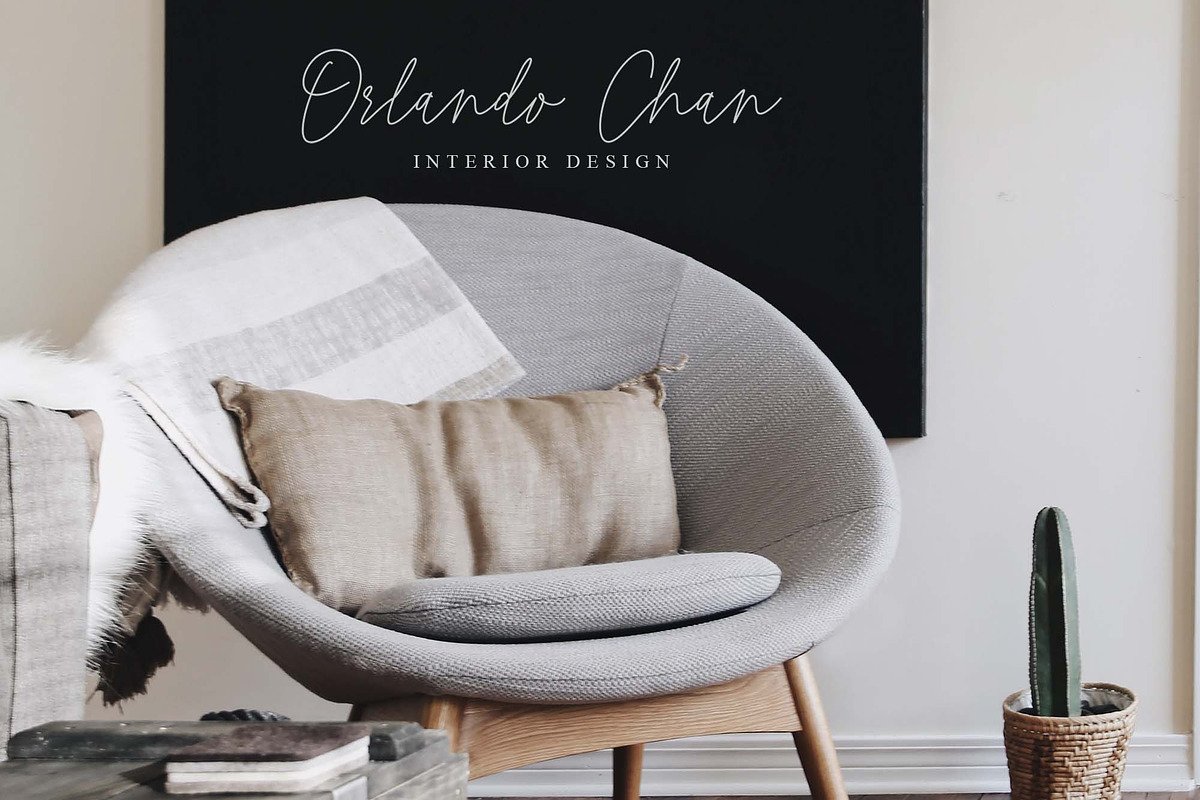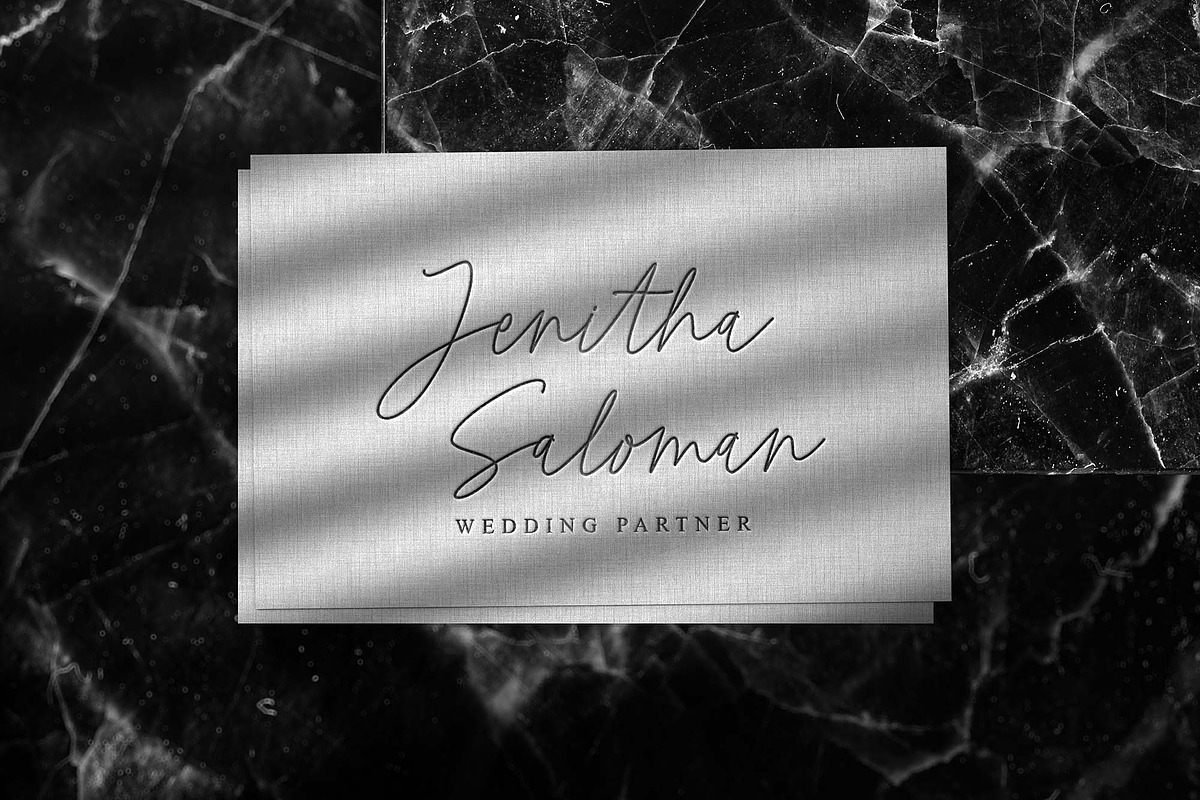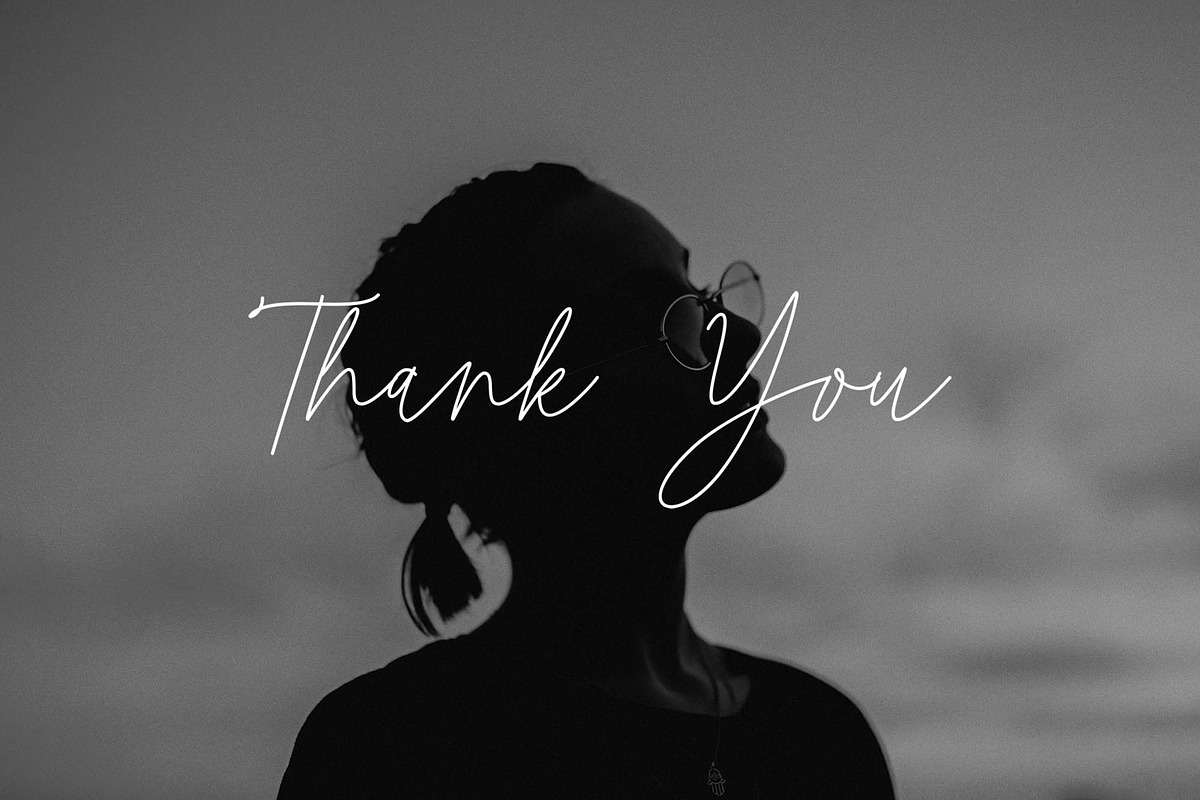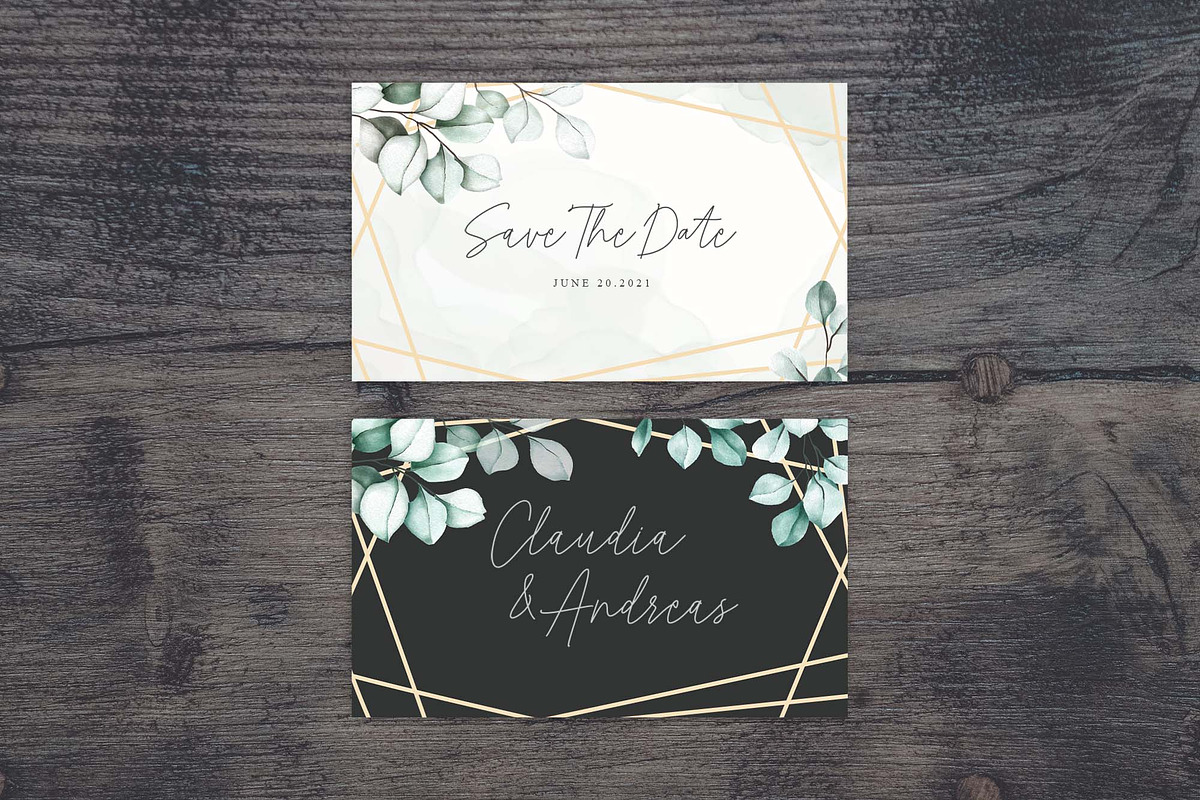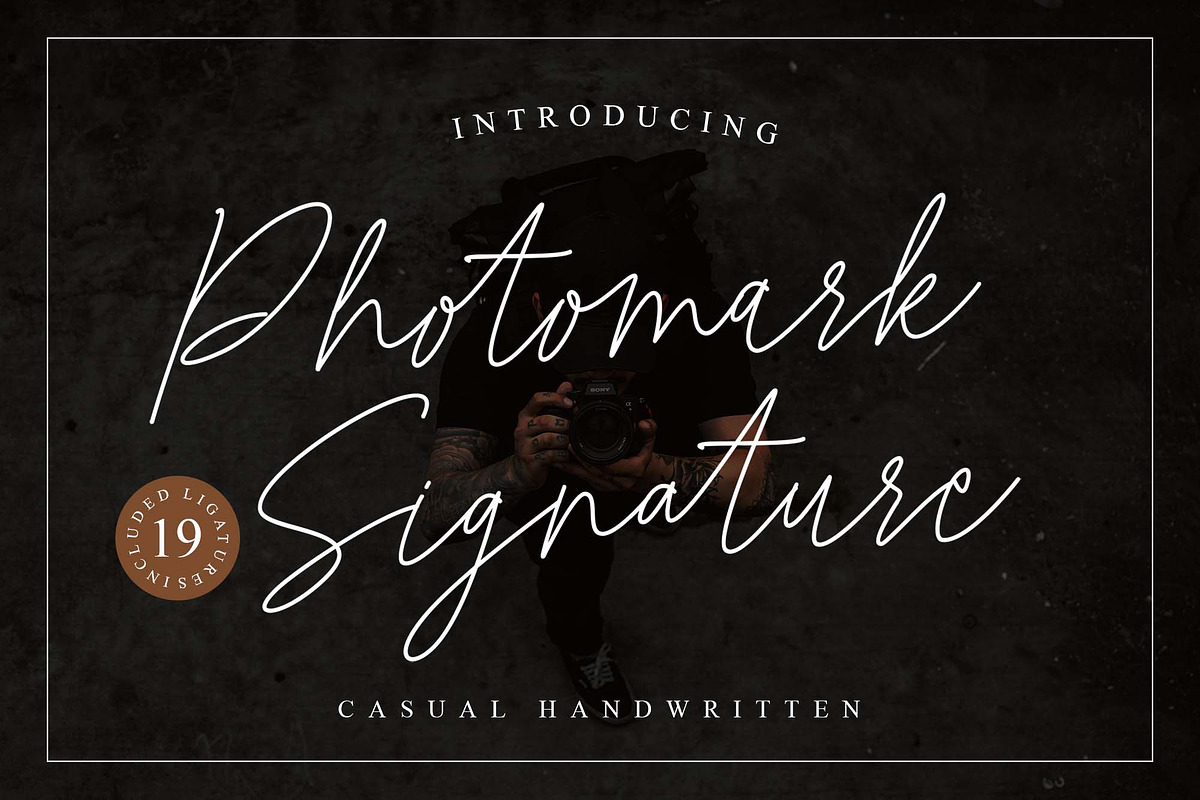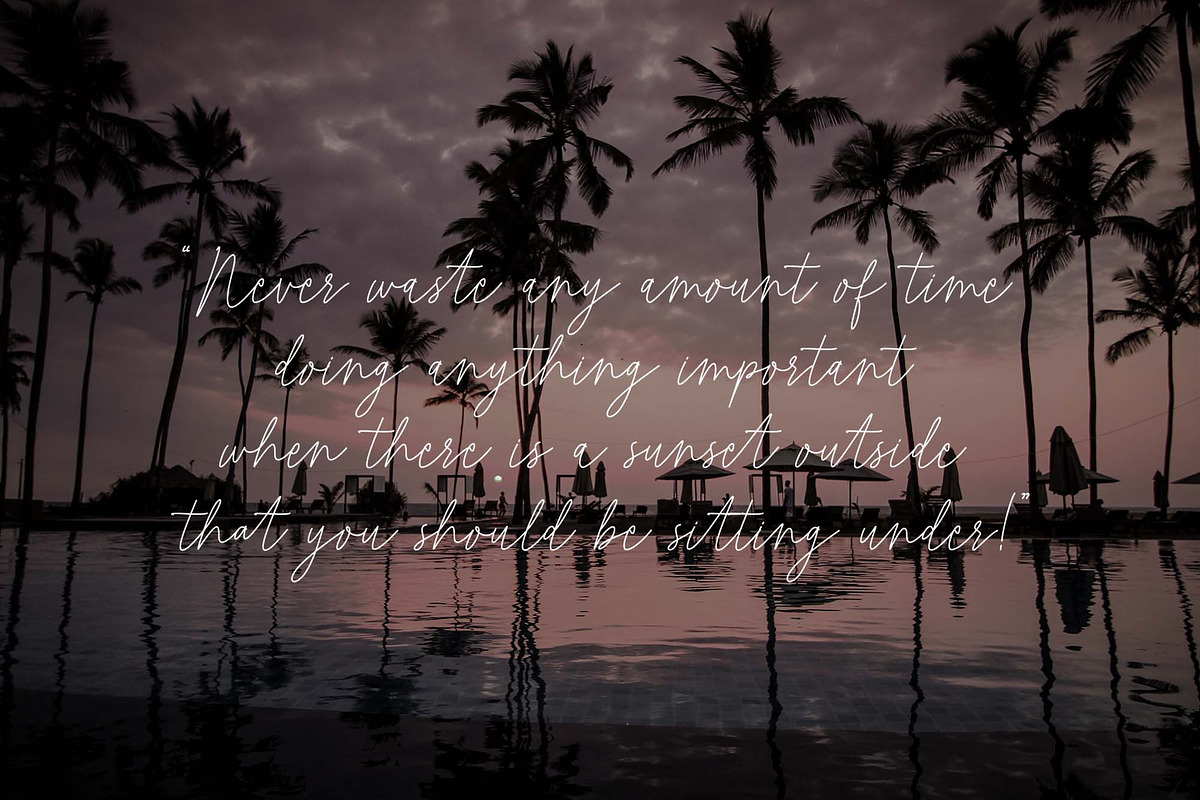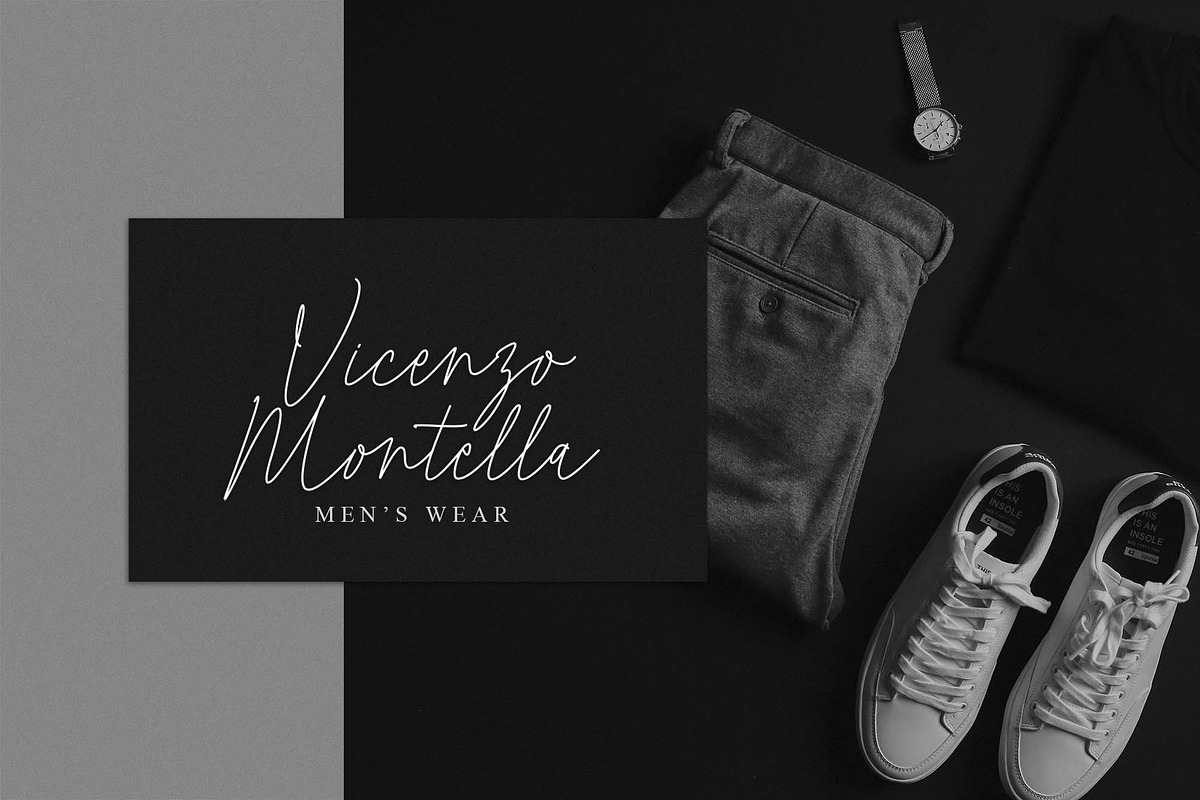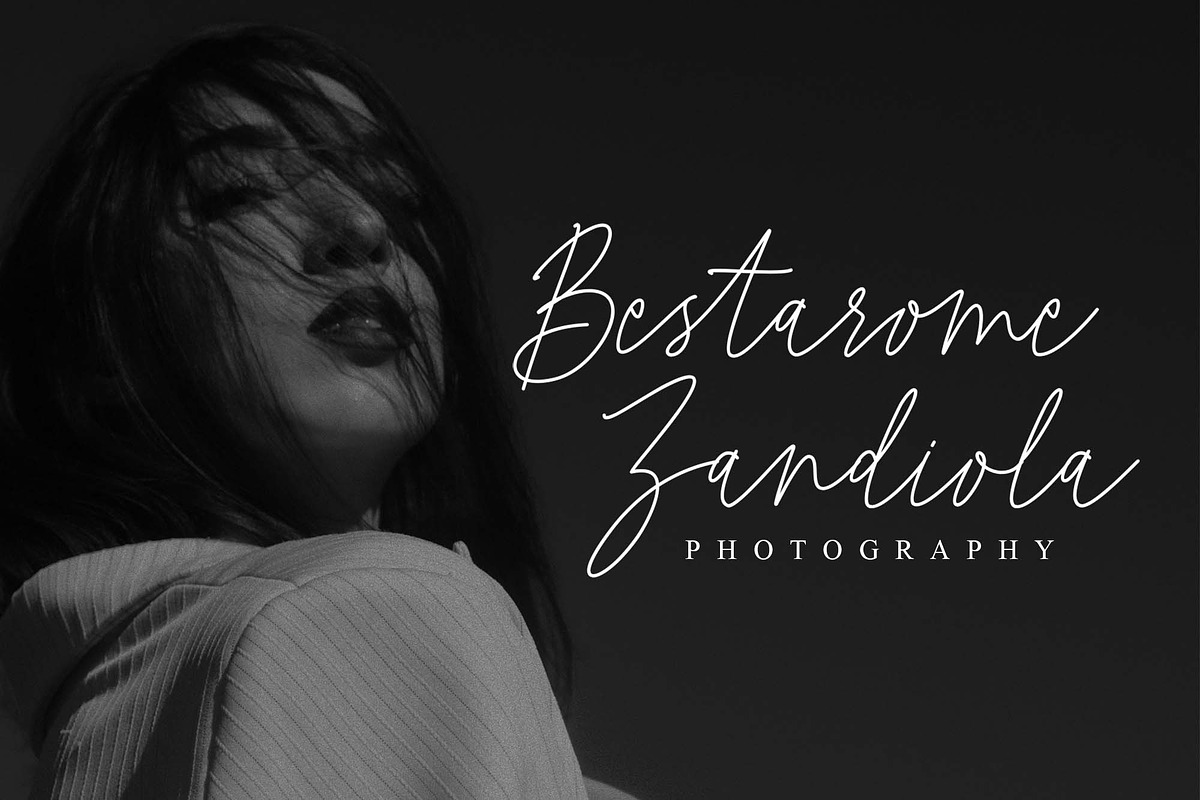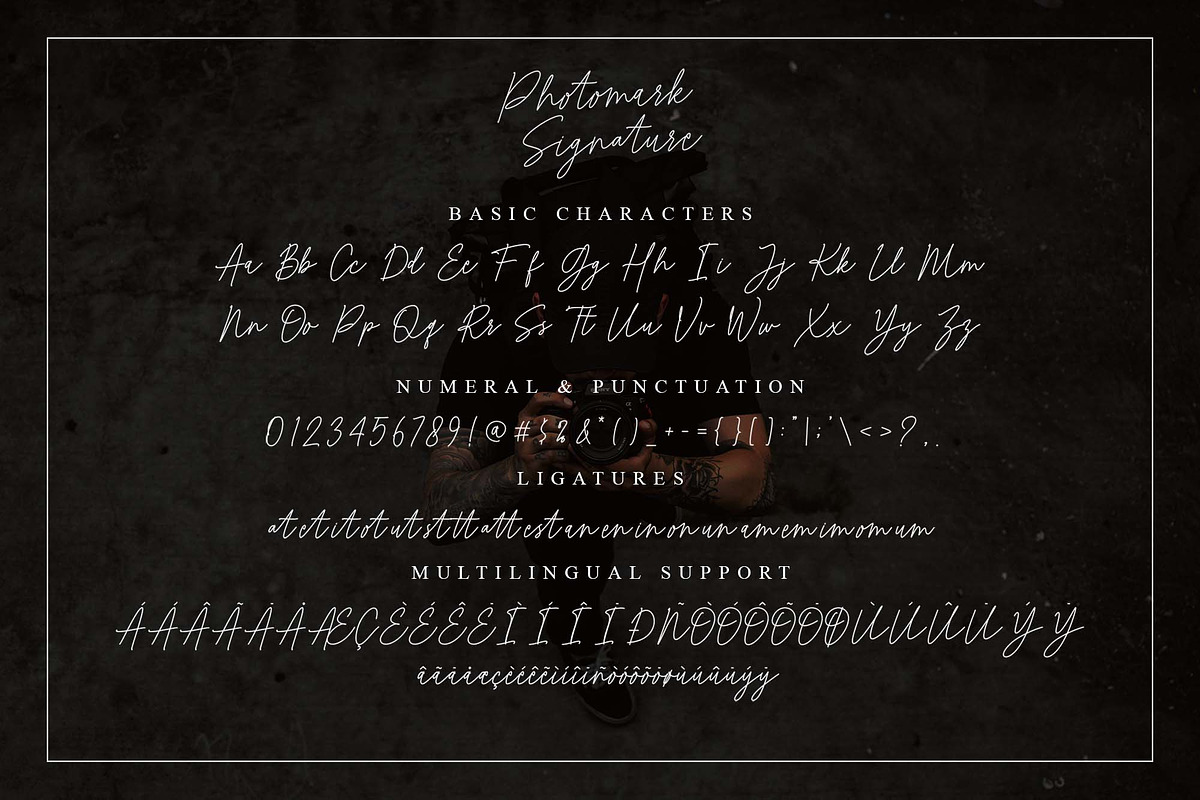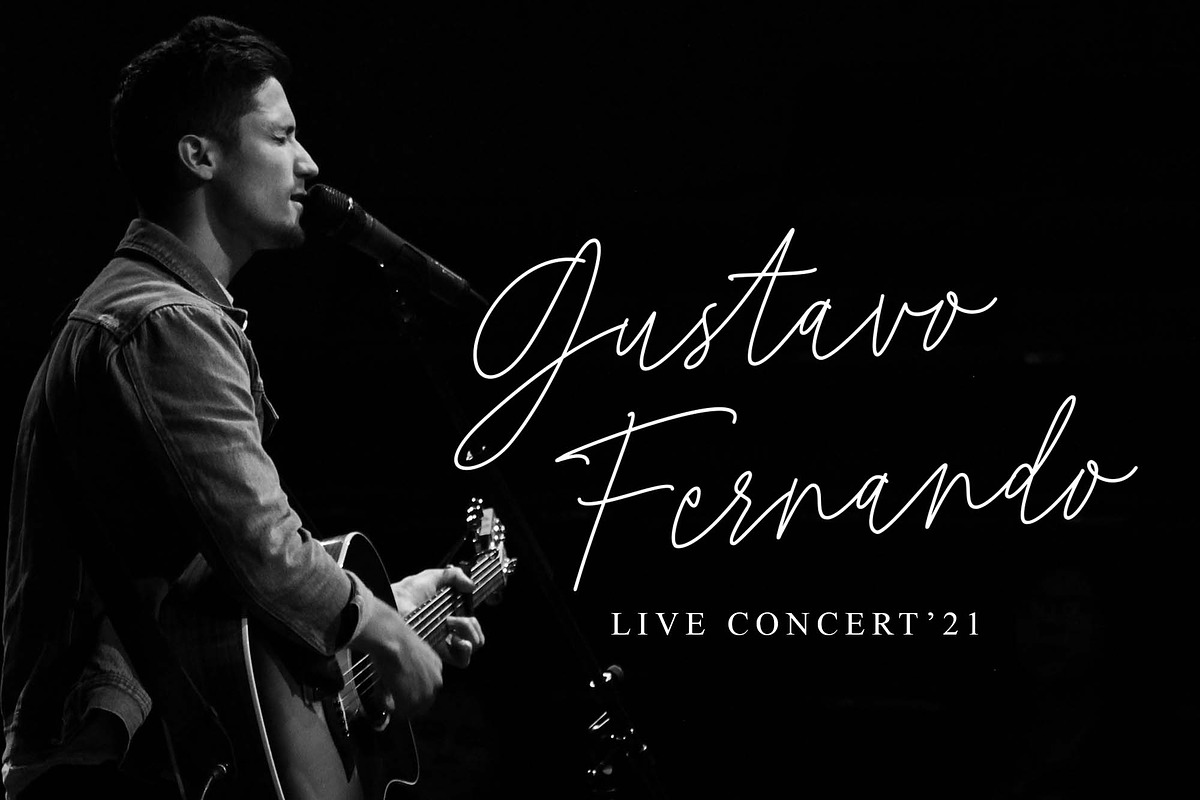
Photomark Signature
Photomark Signature is a Casual and Stylish Signature font, it has unique style in uppercase and lowercase character and very perfect for branding, signature, card designs, wedding designs, photomarks, logos and other
Photomark Signature includes full set of uppercase and lowercase letters, numeral, punctuations and ligatures.